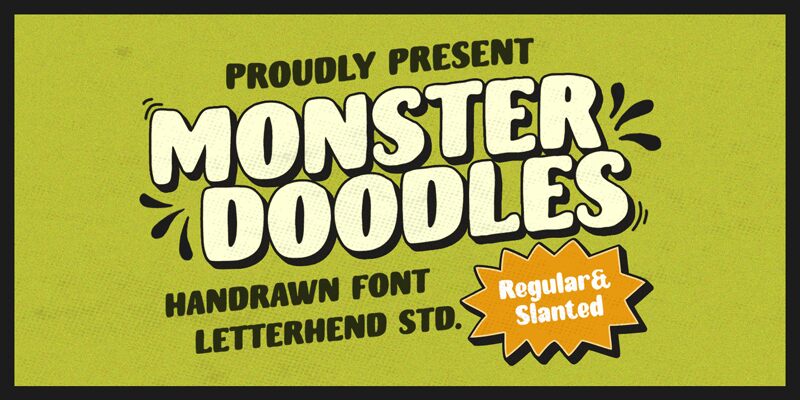
Monster Doodles leaps off the page with a playful energy that is quintessentially cartoonish and unapologetically bold. Crafted by Letterhend Studio, this display font captures the whimsy of childhood illustrations and the charm of hand-drawn characters. Its rounded edges and sturdy form evoke a sense of fun that's perfect for engaging titles and eye-catching slogans.
Ideal for projects aimed at children or those embracing a lighthearted, creative aesthetic, Monster Doodles shines in contexts where personality is paramount. From animated movie titles to vibrant packaging or spirited event invitations, this font adds a touch of joyful exuberance wherever it appears.